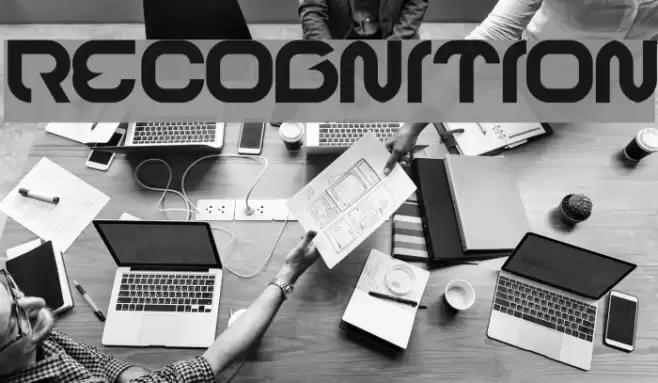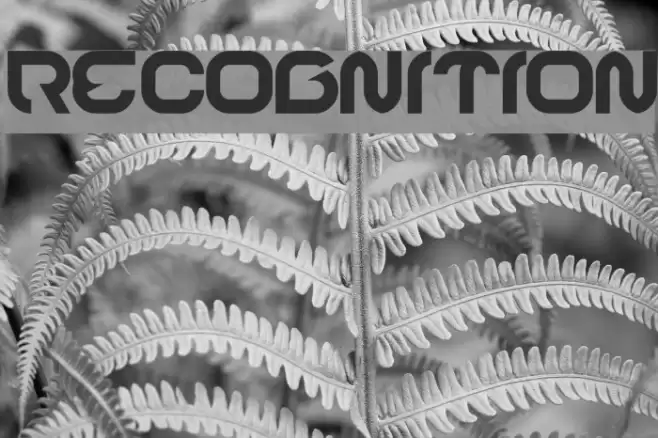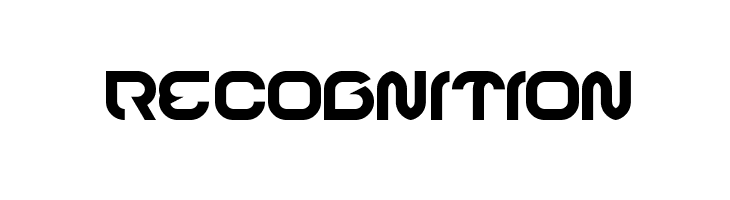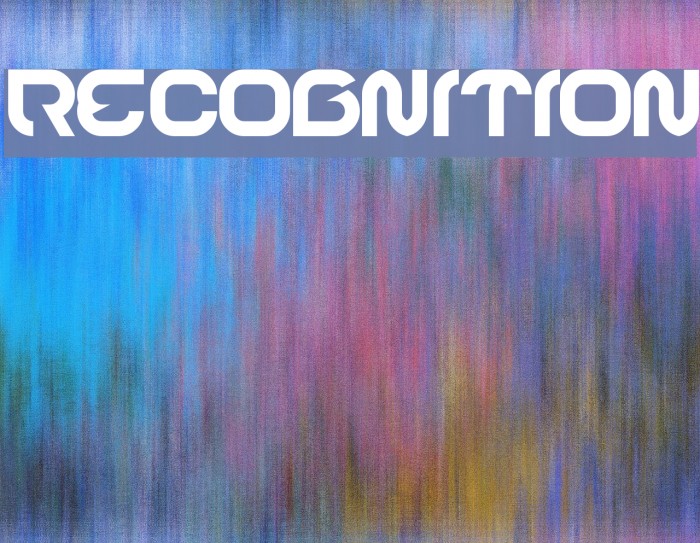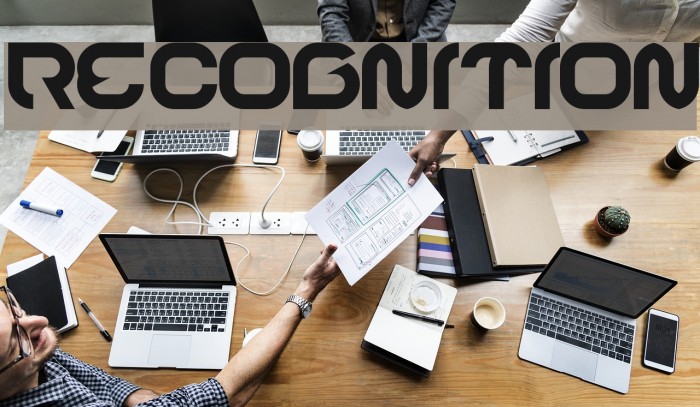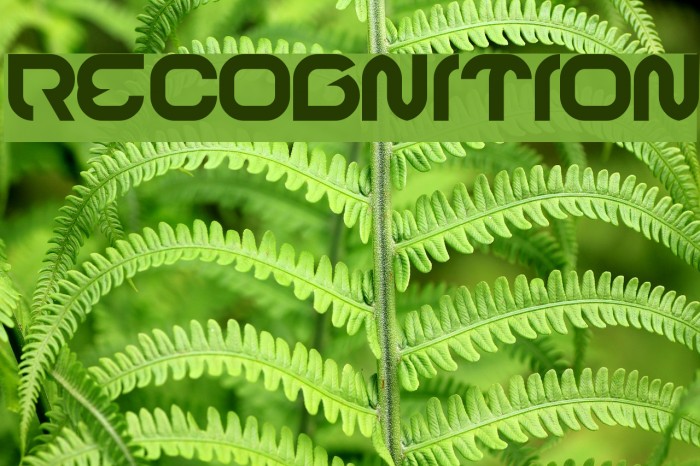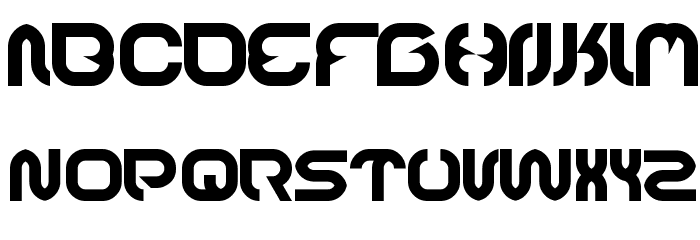
RECOGNITION Font
RECOGNITION Description
This font features a bold and futuristic design with geometric shapes and sharp angles. The characters are constructed with a unique blend of curves and straight lines, creating a sense of movement and modernity. The uppercase letters are particularly striking, with some characters incorporating cut-out sections that add to the font's dynamic appearance. The overall style is highly decorative, making it suitable for eye-catching designs. The font's distinctiveness is further enhanced by its consistent stroke weight and balanced proportions.
A bold, futuristic font with geometric shapes and sharp angles from Uncategorized fonts.
- Proposed Projects: Ideal for sci-fi themed projects, technology branding, video game titles, and modern posters.